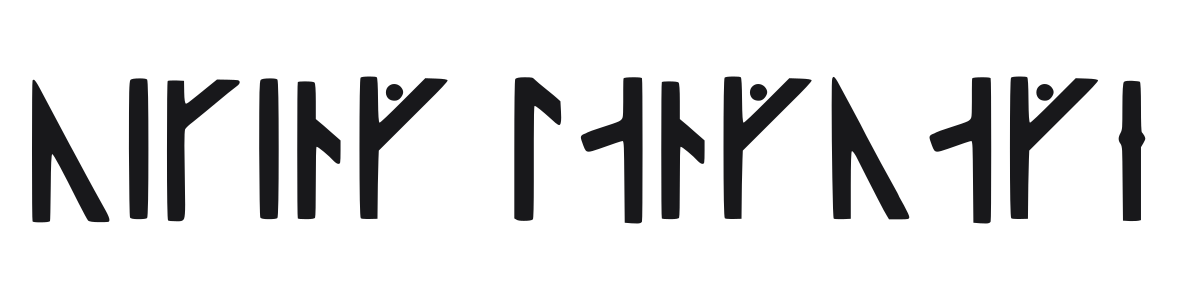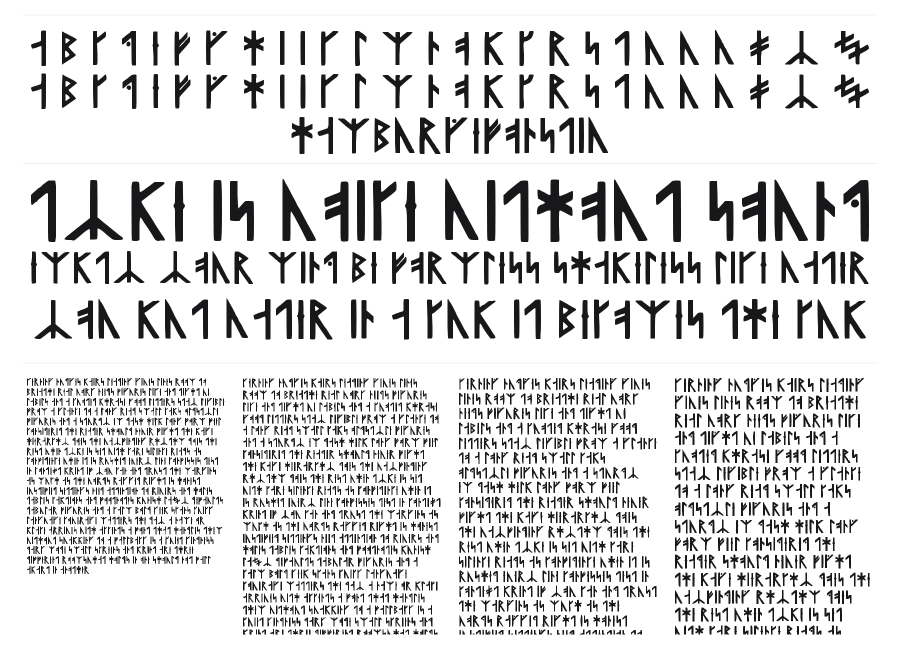
Viking Language
Viking Language is a runic symbol font recreating the fictional writing system from the How to Train Your Dragon franchise. Every character is built from stark angular strokes with no curves, mimicking the look of stone-carved Elder Futhark runes. It reads as authentically ancient even though it's rooted in modern fantasy worldbuilding.